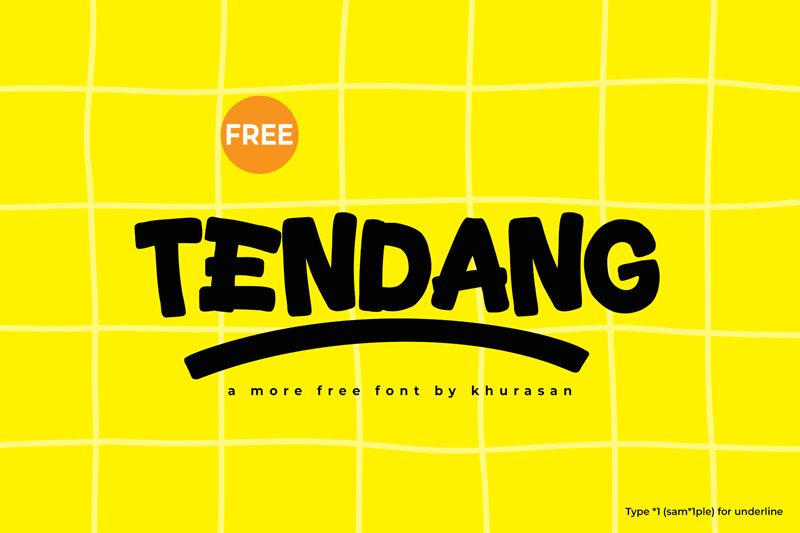
Tendang font family by Khurasan™ presents its two font styles as a free font family for graphic designers with a taste for the unique and modern. This informal cartoon font has a bold presence that’s delivered with dynamic and casual characters, allowing readers to enjoy each moment of a laid-back reading and making designs more approachable and friendly.
The versatile nature and energy of this font allow it to be used in comic books, cartoon TV posters, educational resources for children, and video game designs. You can easily feature the engaging designs in branding and packaging projects, especially when it comes to food items. The fun presentation of Tendang comes in handy as it can also be used for menus, online platforms, and applications.